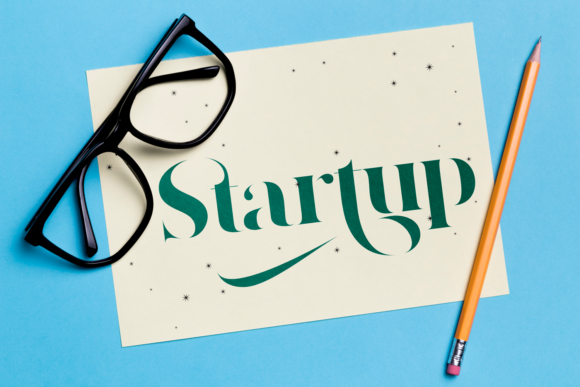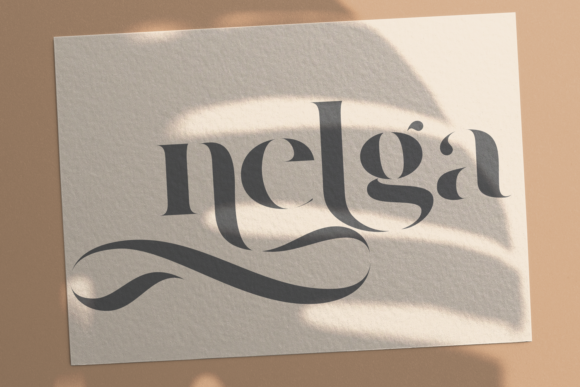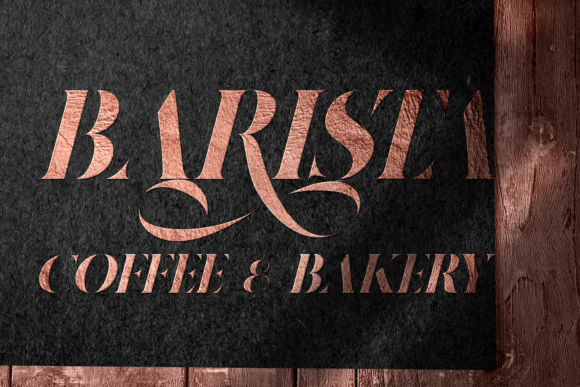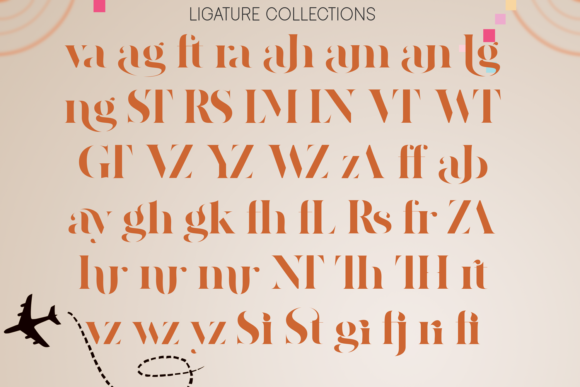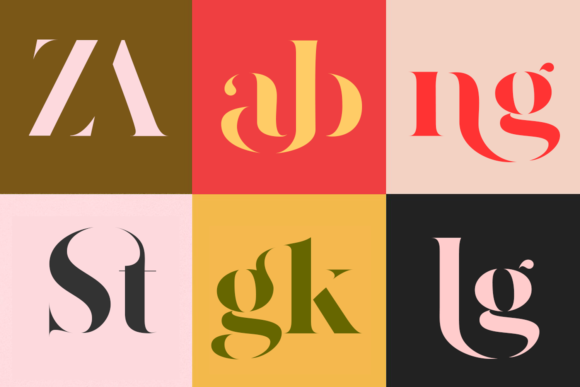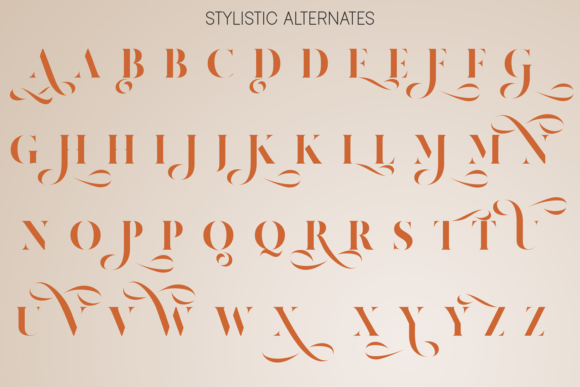
Unleash Your Creativity with Amigh Font
Have you ever been working on a project and that one element just feels like it’s missing a certain je ne sais quoi? The perfect font can be the difference between a design that’s good and one that’s truly exceptional. As designers, we’re always on the lookout for that special something that will elevate our work and make it stand out from the crowd.
Enter the Amigh Font, a stylish and elegant serif font that’s designed to add a touch of sophistication to your presentations, logos, and other design projects. With its beautiful ligatures and alternates, Amigh Font is the perfect choice for anyone looking to add a little extra flair to their work. And with its PUA encoding, accessing all of the glyphs and swashes is a breeze, giving you even more creative possibilities.
Amigh Font Key Features
- Font Family: Amigh is a modern, elegant font family designed for various applications, including digital and print media.
- Size: Amigh Font family consists of multiple weights, ranging from Light (100) to Bold (700), catering to diverse design needs.
- Resolution: Designed for high-resolution displays, Amigh Font is optimized for use at resolutions of 72 dpi to 300 dpi.
- Unique Characteristics: Amigh Font features a unique blend of geometric and organic shapes, resulting in a distinctive and modern aesthetic.
- Language Support: Amigh Font supports a wide range of languages, including Latin, Cyrillic, and Greek scripts, making it suitable for global applications.
Amigh Font Review
Overall, I think the Amigh font has some unique qualities that make it stand out from other fonts, but it also has some limitations that prevent it from being a top choice for every design project.
Amigh has a very distinctive and exotic feel to it, making it perfect for projects that need to evoke a sense of mystery or otherworldliness.
The font’s use of ornate details and intricate patterns adds a level of sophistication and elegance that can be hard to find in other fonts.
Amigh is also highly customizable, allowing designers to tweak the font’s appearance to fit their specific needs.
One of the biggest drawbacks of Amigh is its limited legibility, particularly at smaller font sizes. This can make it difficult to read for some users.
The font’s ornate details can also make it difficult to use for projects that require a lot of text, as it can be visually overwhelming.
While Amigh is not a font that I would recommend for every design project, I think it has a lot of potential for the right use cases. With careful consideration and customization, Amigh can add a unique and sophisticated touch to a design that’s hard to find elsewhere.
Amigh Font Practical Application Guide
Tips for Getting the Most Out of Amigh Font
Amigh Font is ideal for creative and artistic designs. To get the most out of it, try combining it with other creative fonts and using it for headings and titles. Experiment with different font sizes and styles to add visual interest to your design.
Amigh Font is commonly used for:
- Artistic and creative posters
- Brand identity and logo design
- Editorial and magazine design
Alternatives to Amigh Font
Montserrat is a modern sans-serif font designed for digital use. It is a versatile font suitable for various design projects, including logos, headlines, and body text. Montserrat is more geometric and structured compared to Amigh Font, which makes it ideal for corporate and tech-related designs.
Open Sans is a clean and legible sans-serif font designed for digital media. It is a popular choice for web design and mobile applications due to its readability and adaptability. Compared to Amigh Font, Open Sans is more straightforward and lacks the ornate details, making it suitable for modern and minimalist designs.
Lato is a sans-serif font designed for on-screen use. It is a versatile font suitable for a wide range of projects, including logos, headings, and body text. Lato is more elegant and refined compared to Amigh Font, making it ideal for luxury and high-end designs.
Inter is a modern sans-serif font designed for digital use. It is a highly legible font suitable for various design projects, including logos, headings, and body text. Inter is more streamlined and modern compared to Amigh Font, making it ideal for tech-related and modern designs.